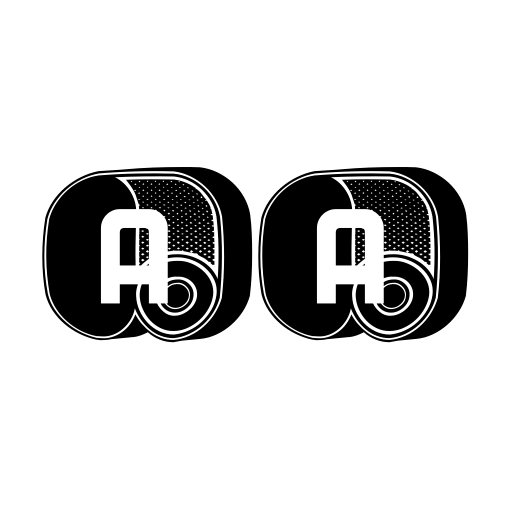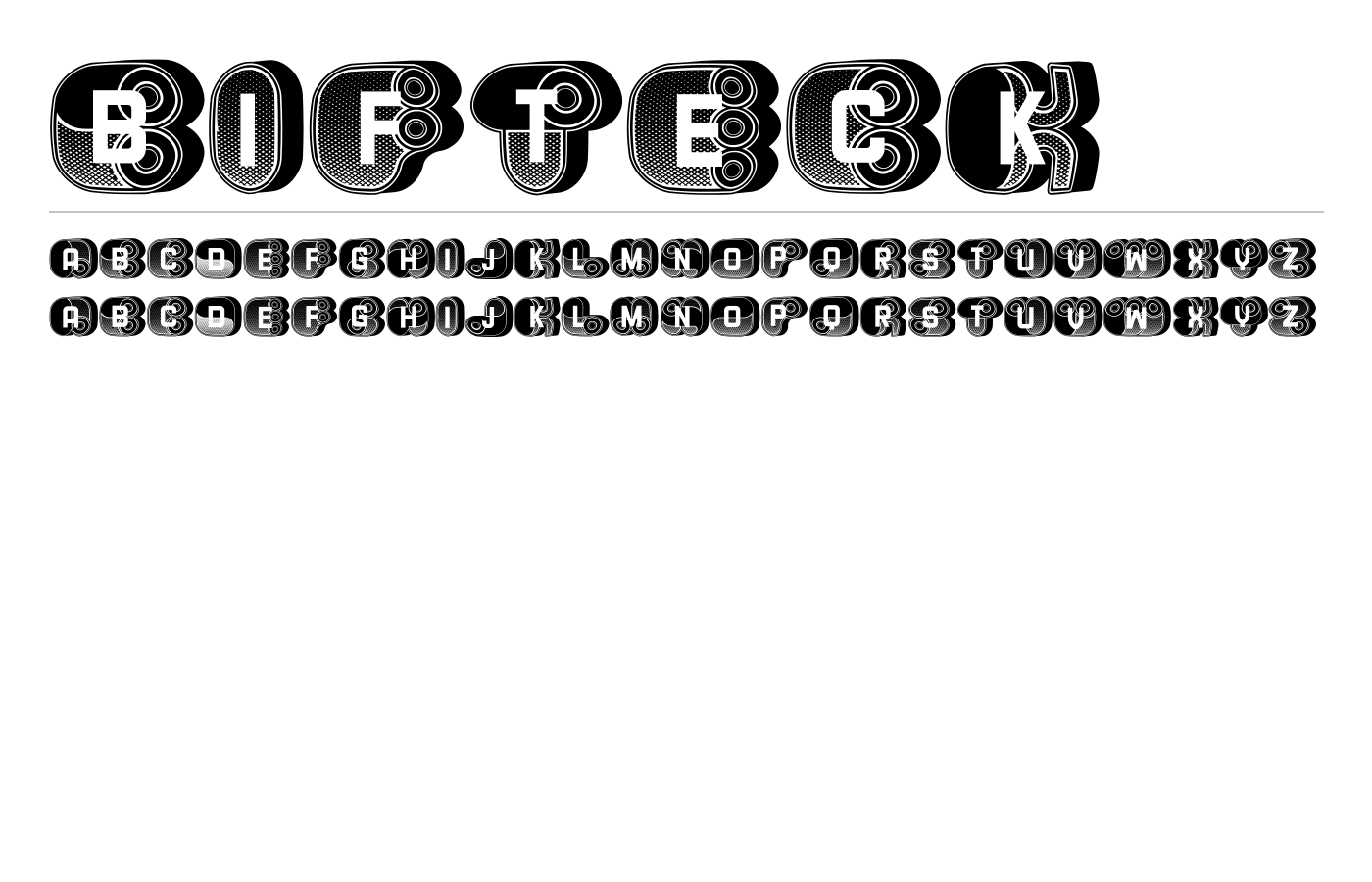
Bifteck is a bold and decorative sans serif display font with strong geometric and layered design elements, featuring shadow and halftone patterns that create a striking 3D effect. Its playful yet modern style makes it ideal for eye-catching headlines, posters, logos, and branding projects that aim to stand out with a unique and artistic vibe. This font works best in large sizes where its intricate details can be fully appreciated.
Bifteck Font
About Bifteck Font